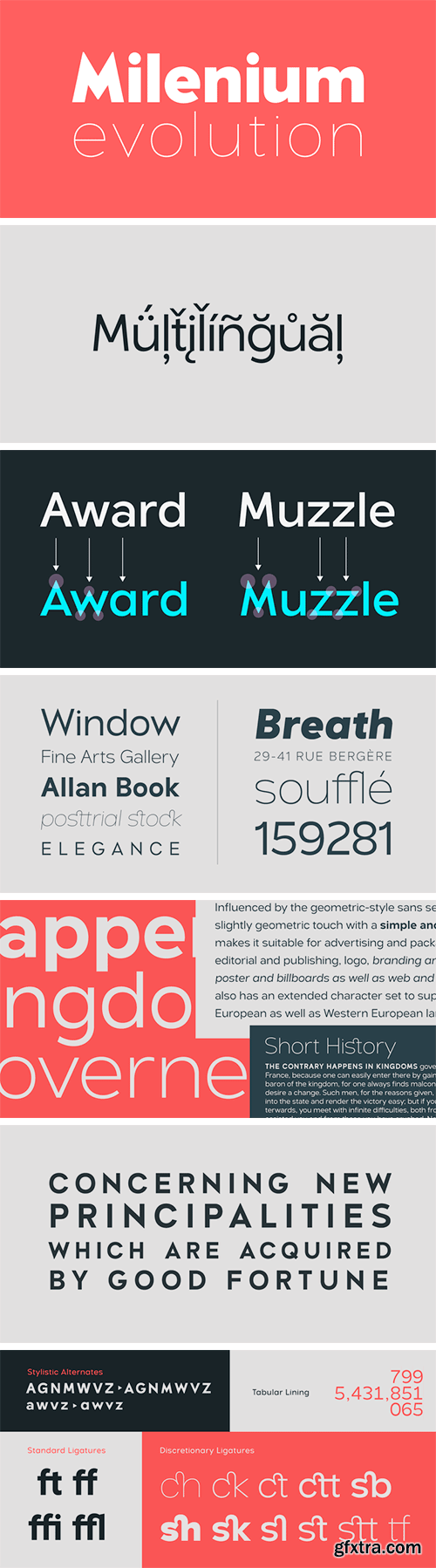
Delecta is a sans serif family of seven weights + matching italics. Influenced by the geometric-style sans serif faces. The font has a slightly geometric touch with a simple and clean personality which makes it suitable for advertising and packaging, festive occasions, editorial and publishing, logo, branding and creative industries, poster and billboards as well as web and screen design. It has some OpenType features like all new and modern fonts such as “stylistic alternates” which includes an elegant set of chars changing the feel of the font. The font also has an extended character set to support Central and Eastern European as well as Western European languages.